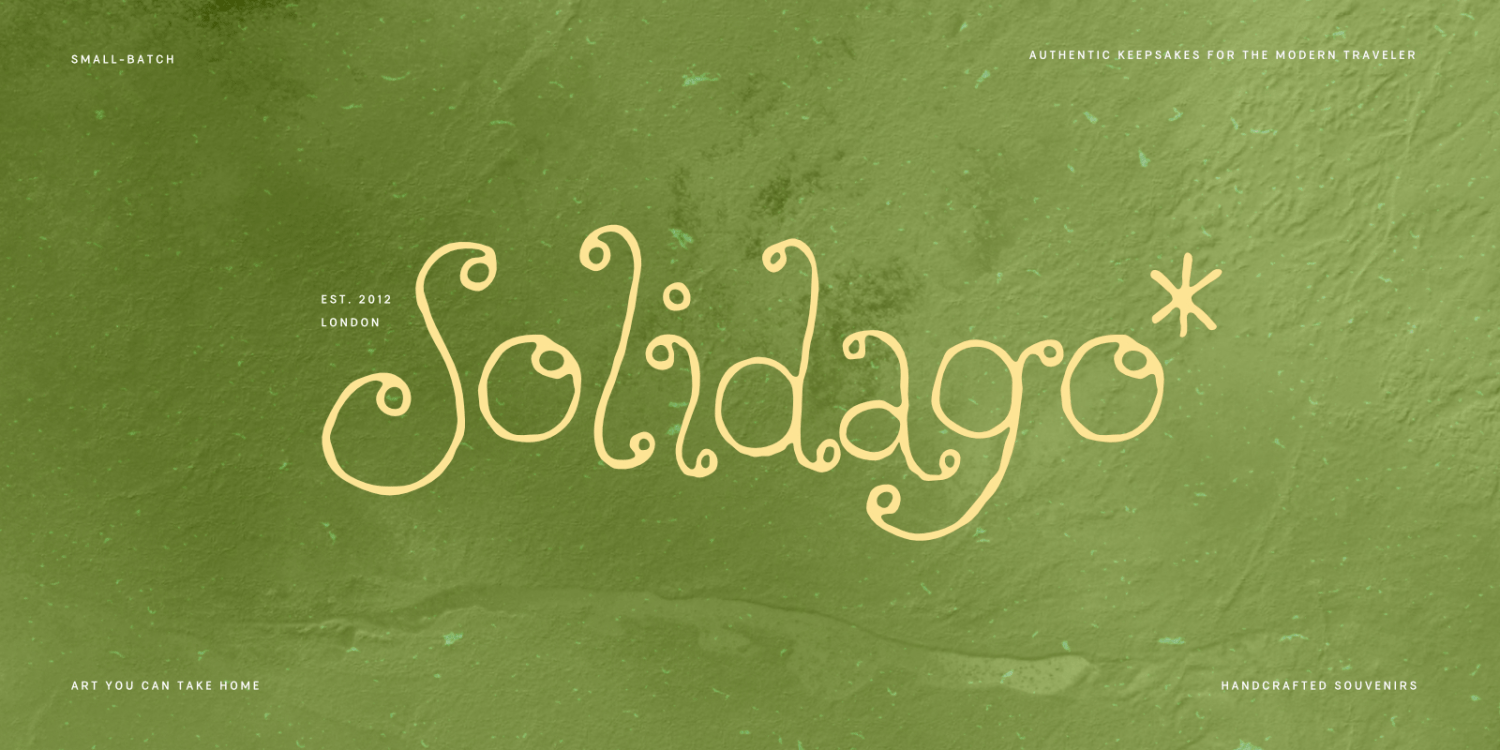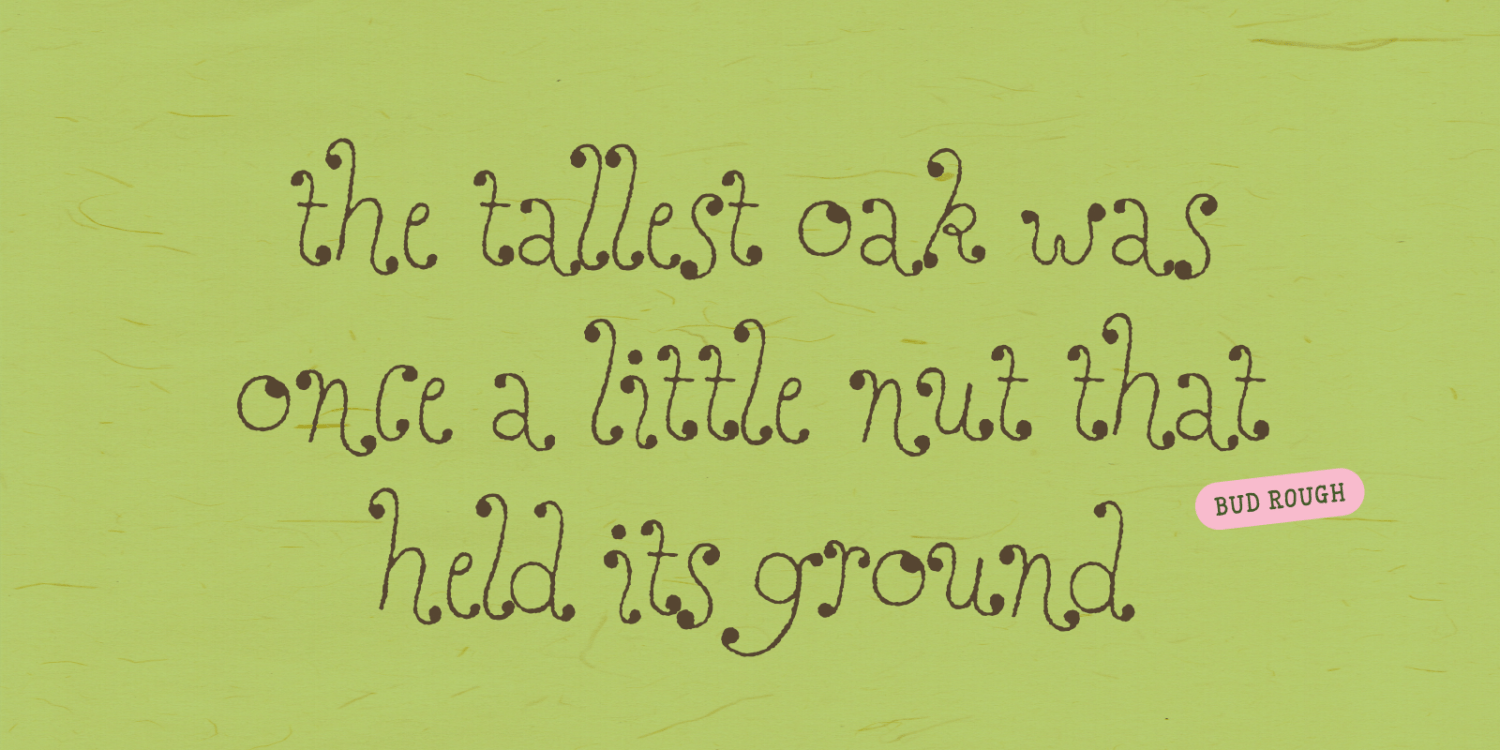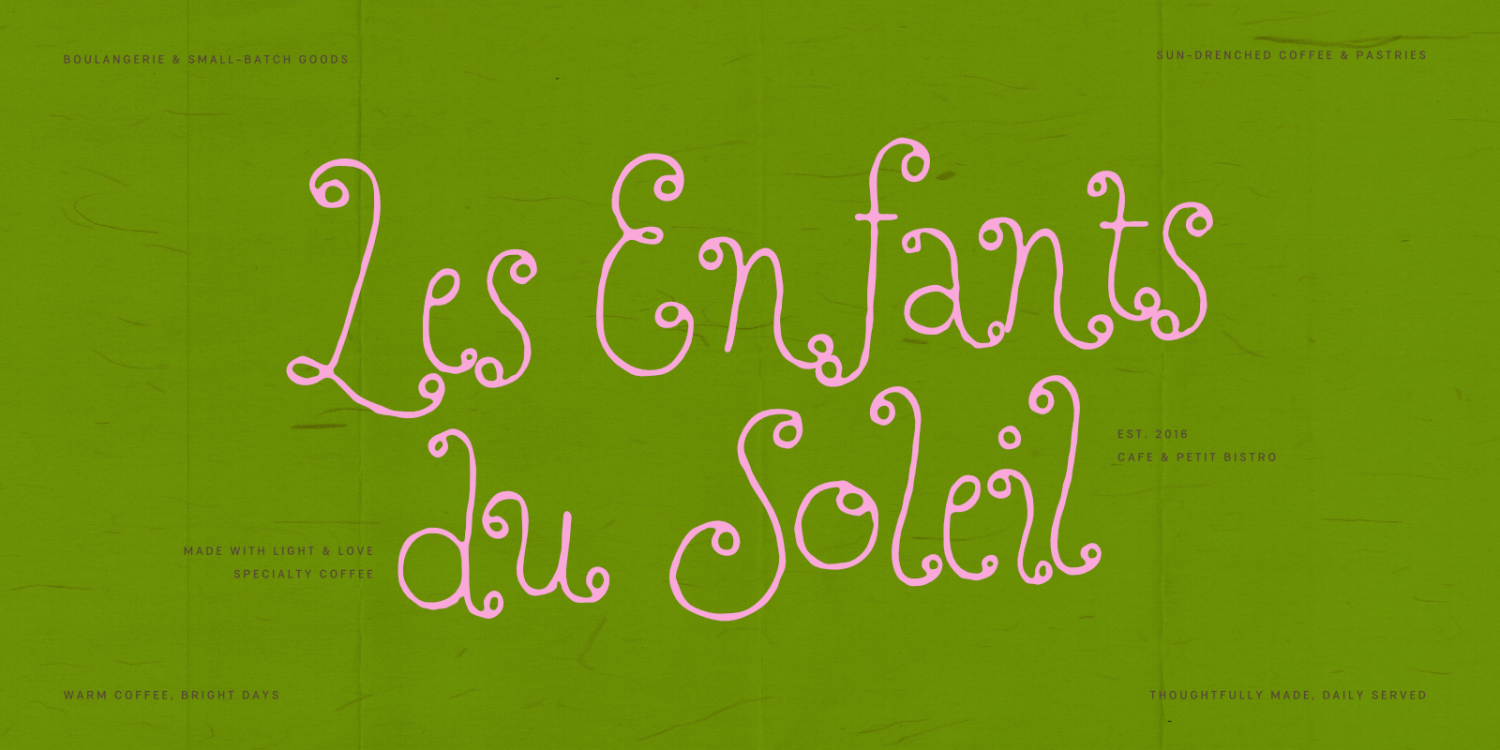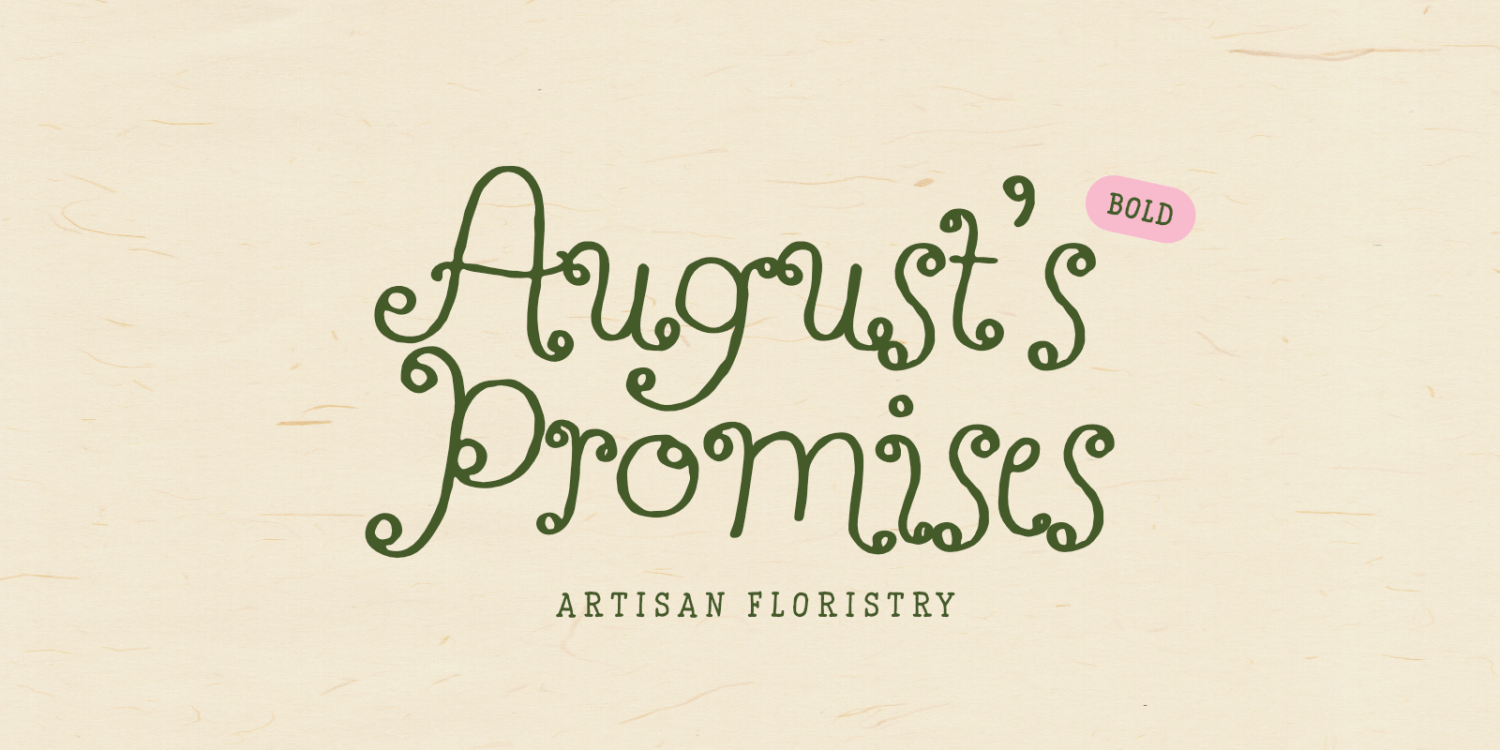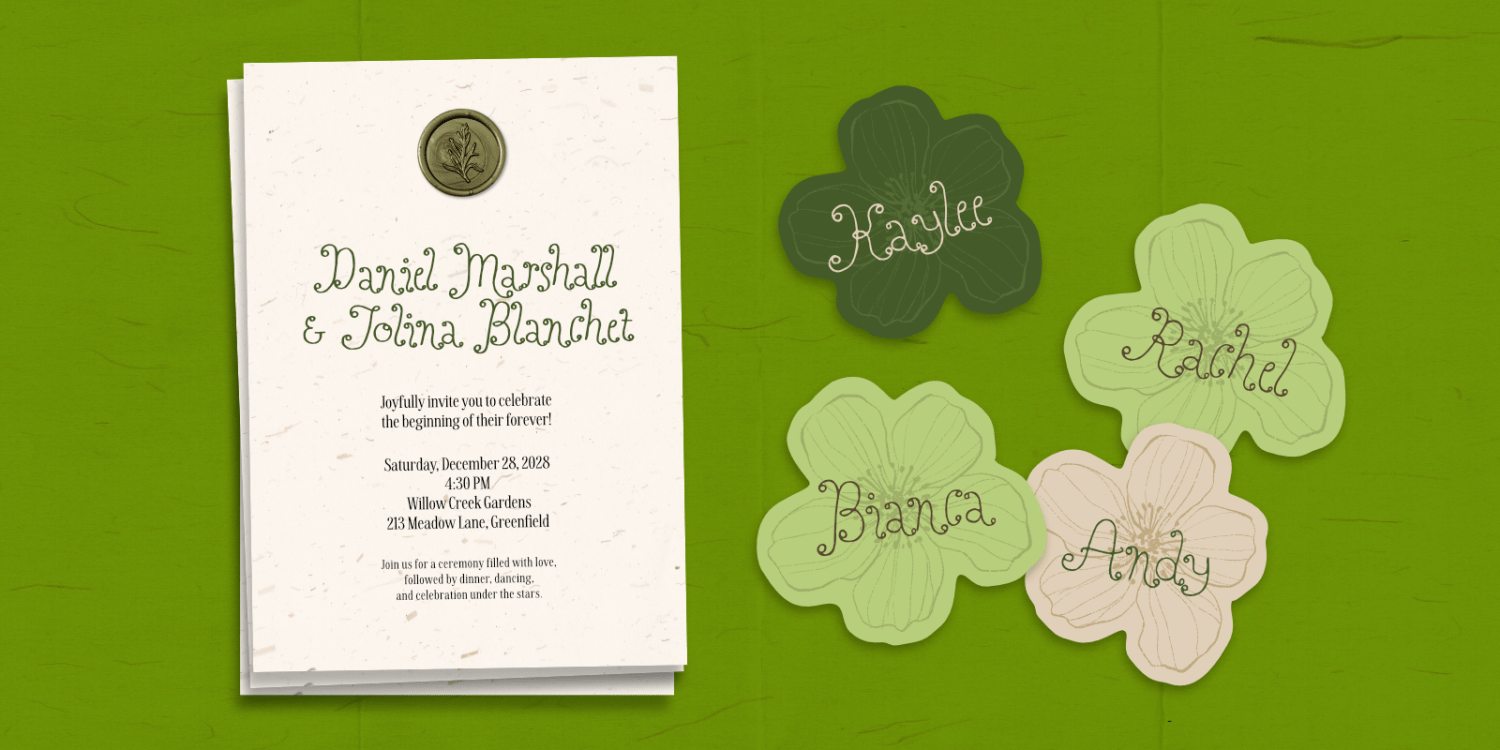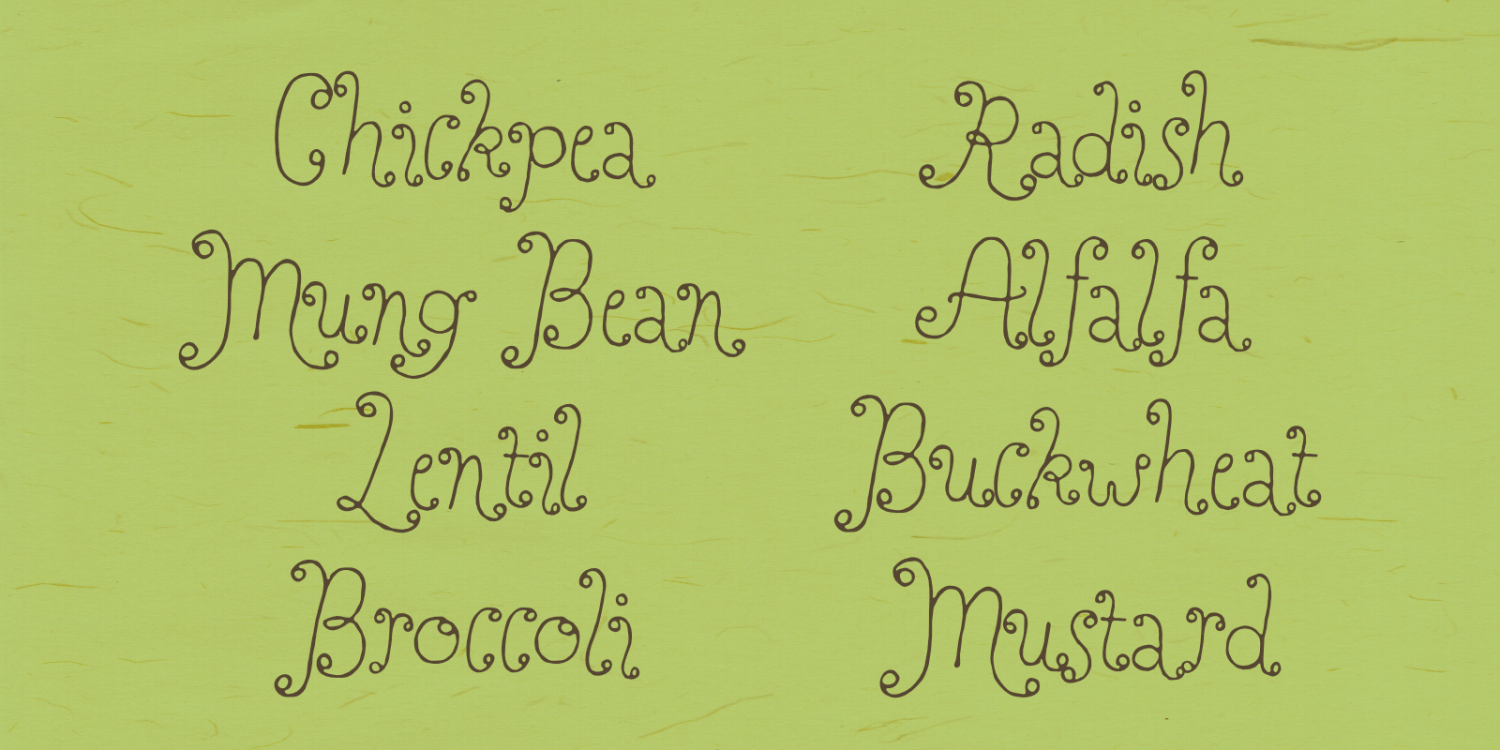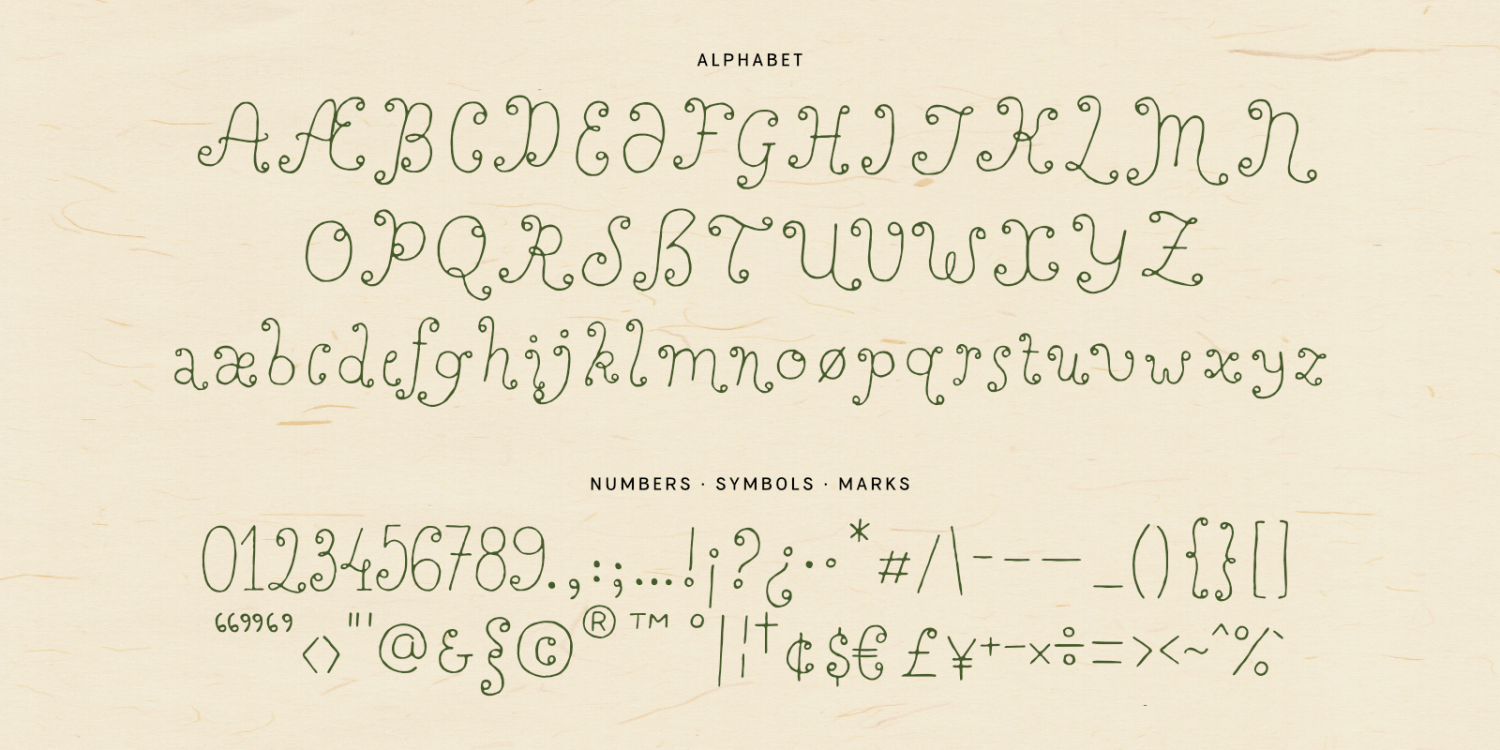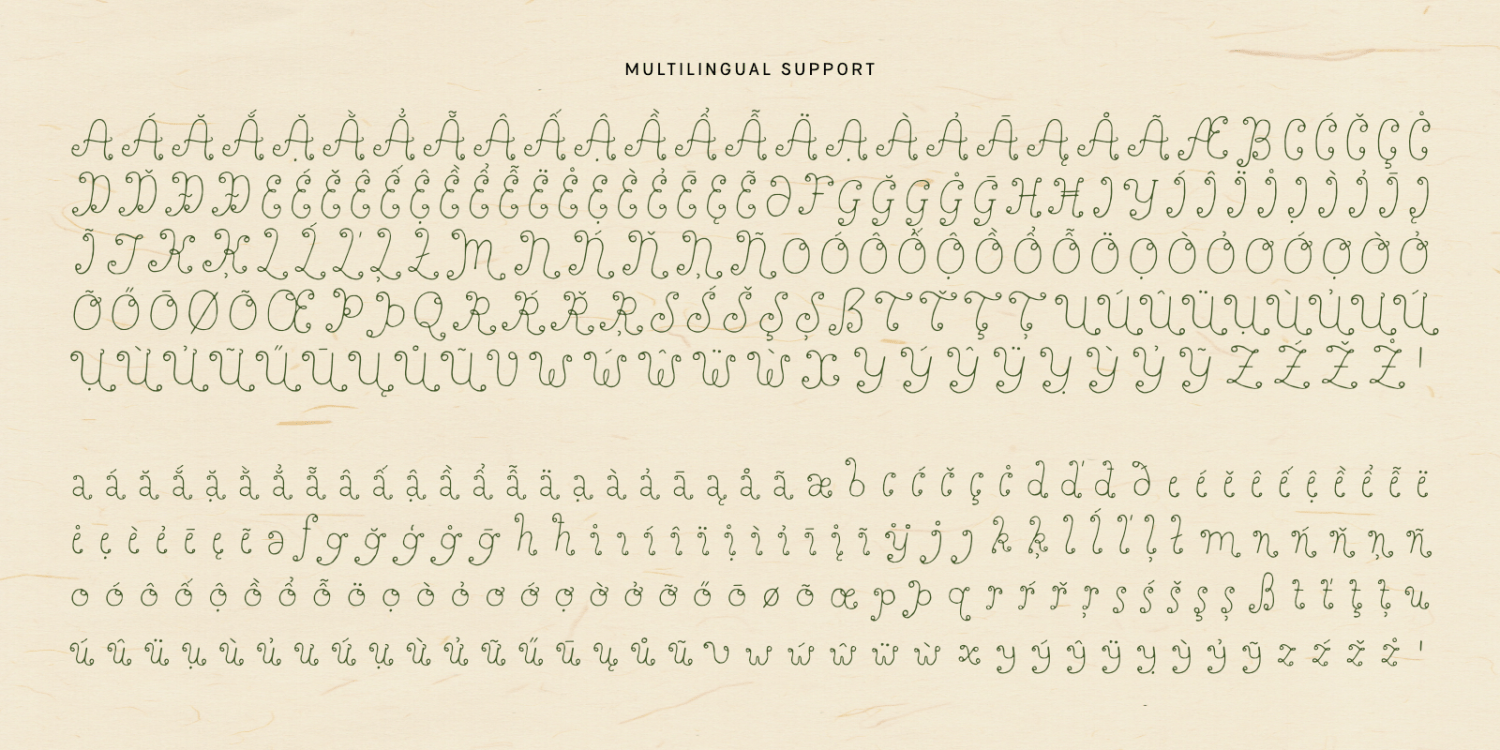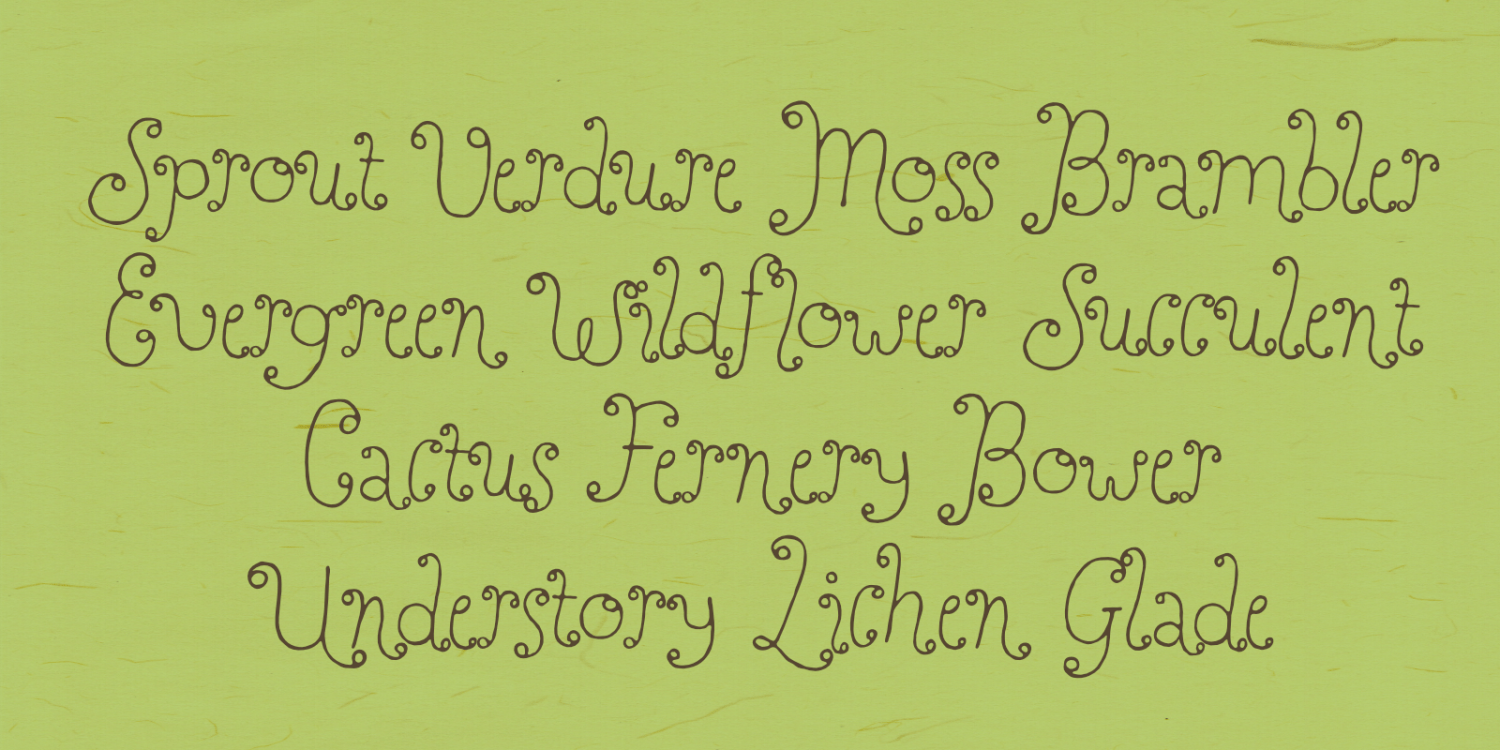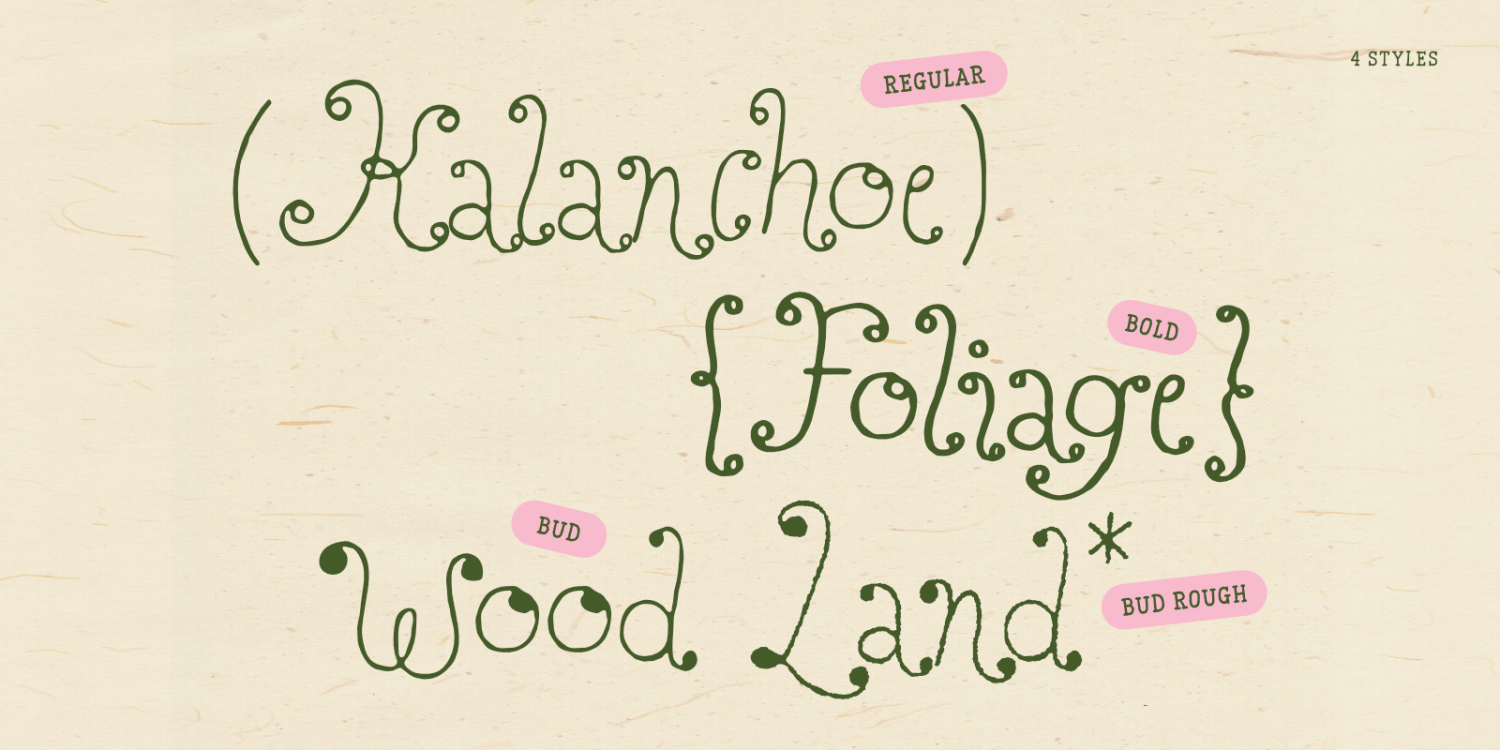
Perfect Sprouts
Introducing Perfect Sprouts, a whimsical, hand-drawn typeface family crafted with care, intention, and a touch of earthy magic.
Each character was drawn by hand and brought together with love to deliver a warm, artisanal feel to your creative work. Perfect for designs that need an organic, heartfelt feel.
Ideal for: Branding, packaging, children’s books, wedding stationery, and editorial layouts.
Features:
• Includes 4 styles: Regular, Bold, Bud, Bud Rough
• Comprehensive uppercase, lowercase, numerals, punctuation marks and symbols
• OpenType features: Standard and Discretionary Ligatures
• Multilingual support
Script: Latin
Supported Languages: English, Western European, Central European, South Eastern European, Vietnamese, South American